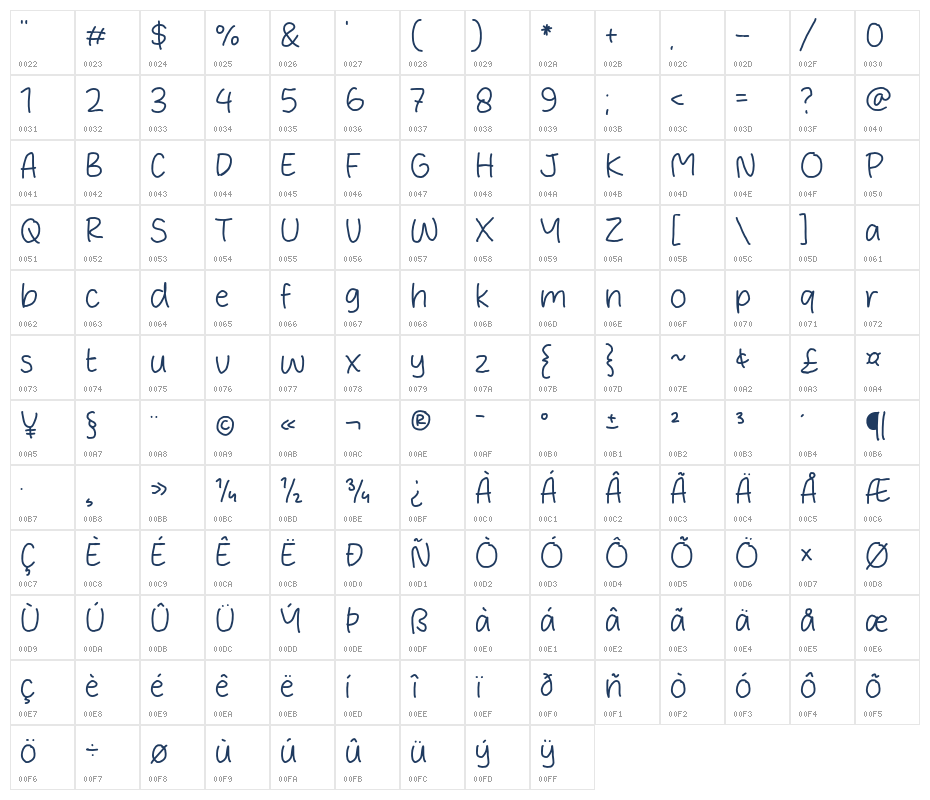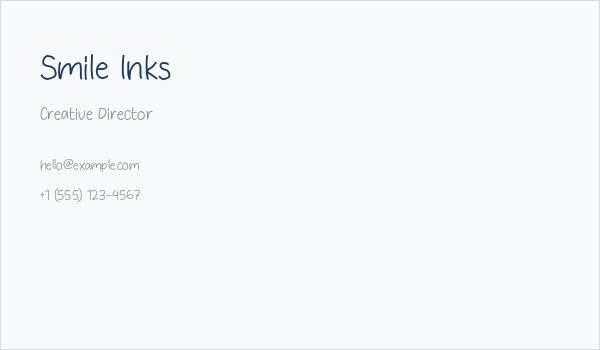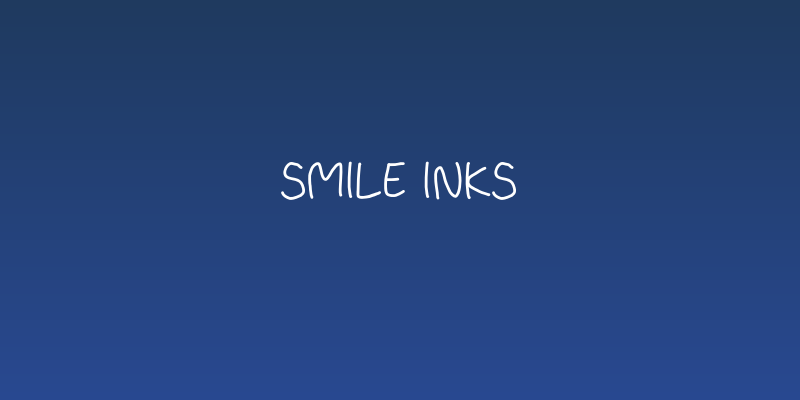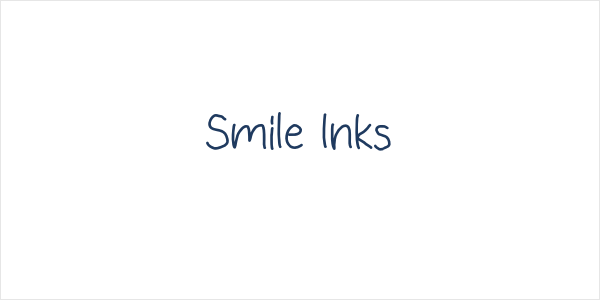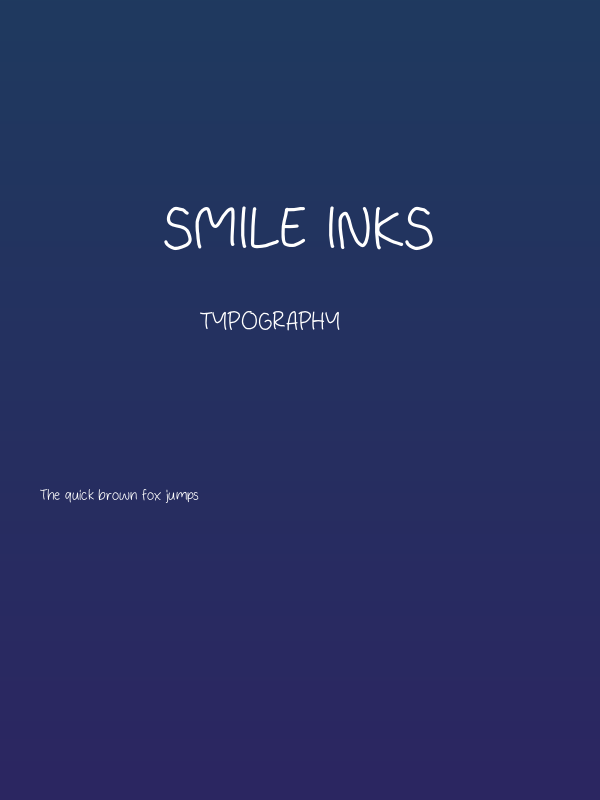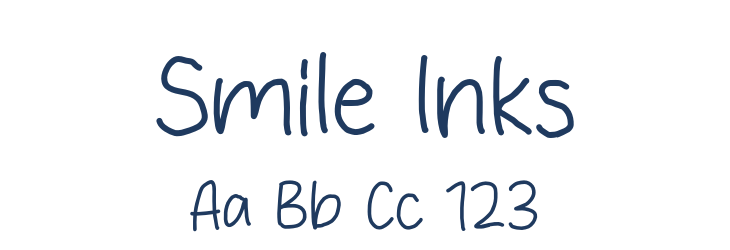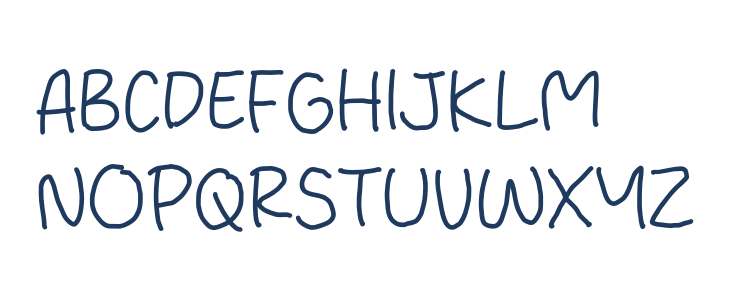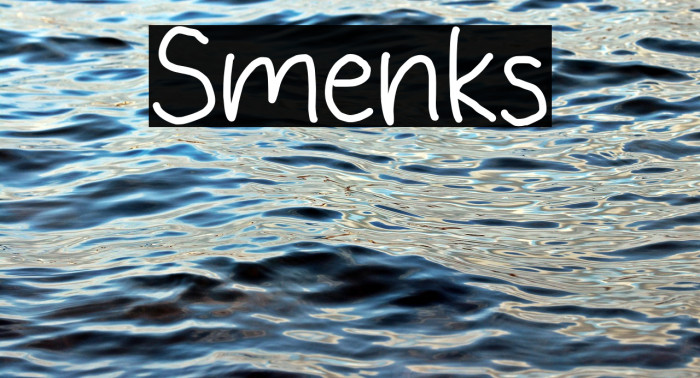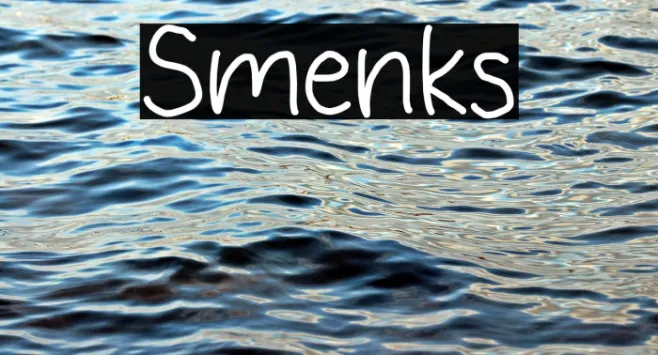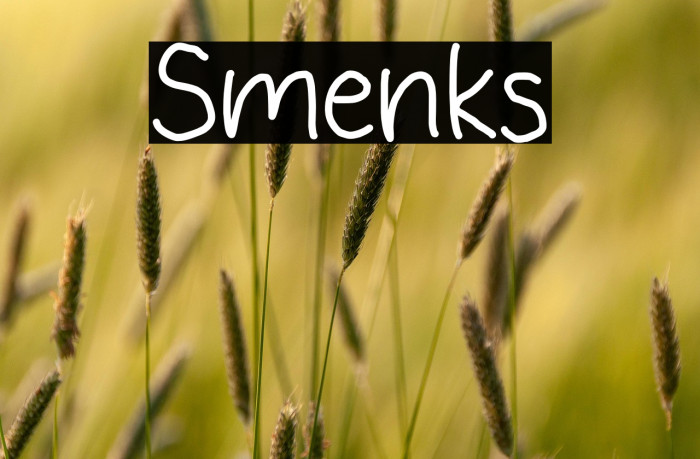
Smile Inks Font
Smile Inks Description
A casual, handwritten script font with a playful and informal style, featuring slightly irregular strokes and a friendly appearance.
Smile Inks
| Overall Style | Casual, Playful, Informal |
| Use Case | Headlines, Body text, Invitations, Personal projects |